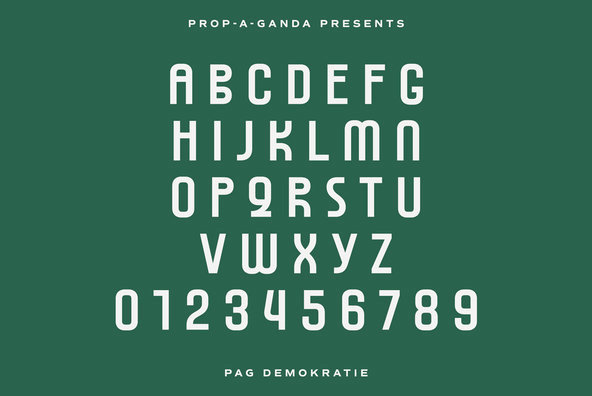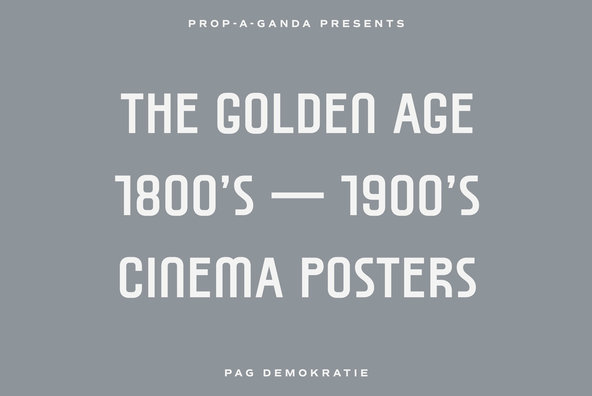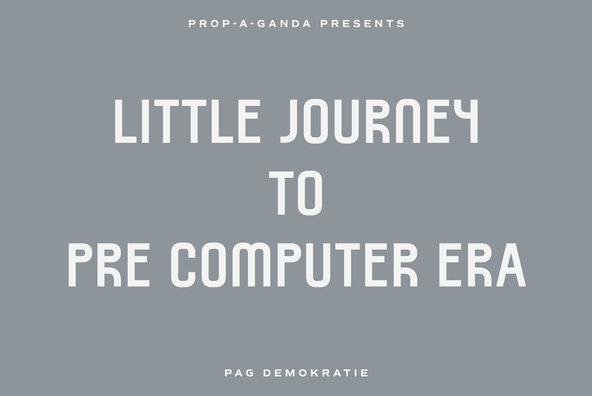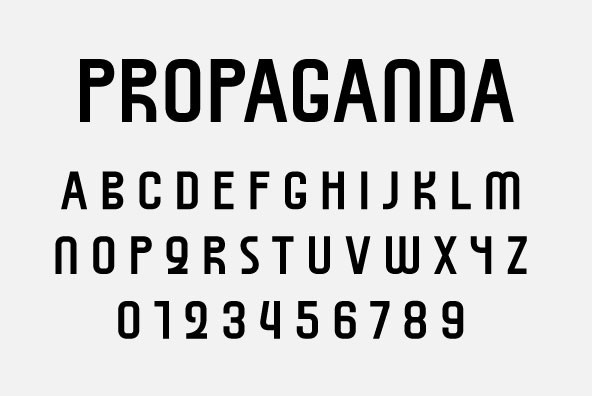
Inspired by and based on retro propaganda posters, movie posters, shopfront lettering & advertisements in the early 20th century.
Inspired by and based on retro propaganda posters, movie posters, shopfront lettering & advertisements in the early 20th century. This is perfect font for your retro style project.